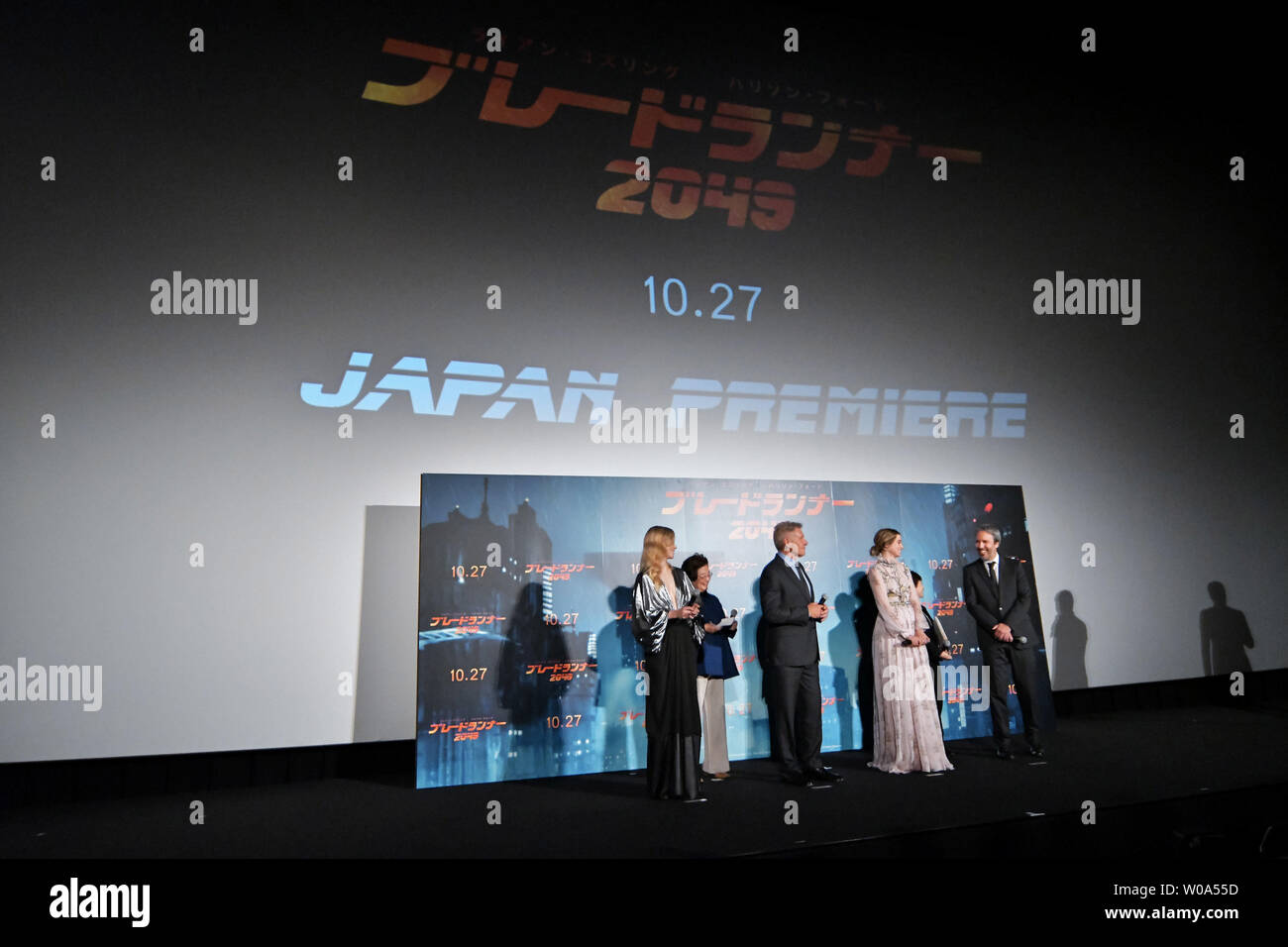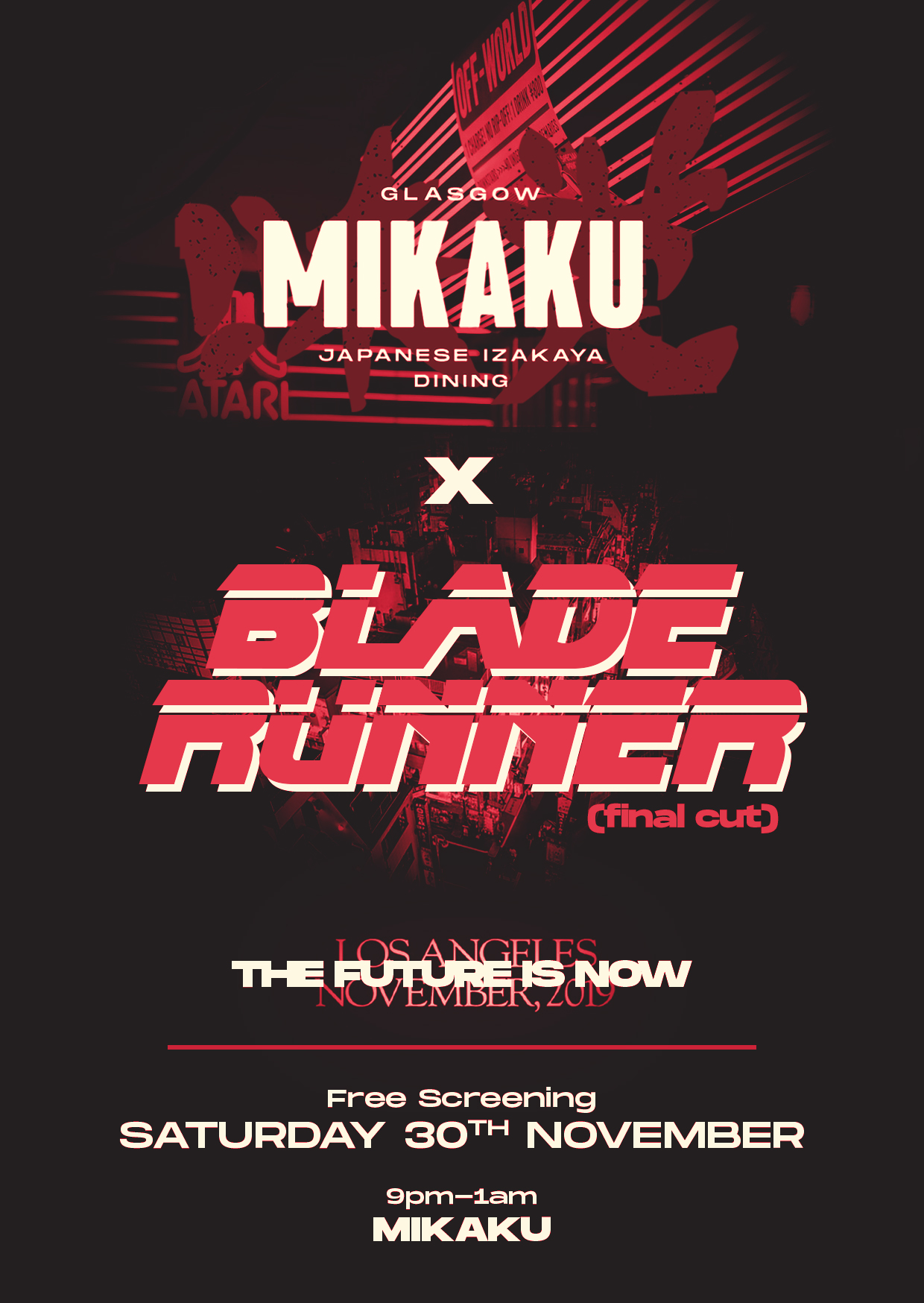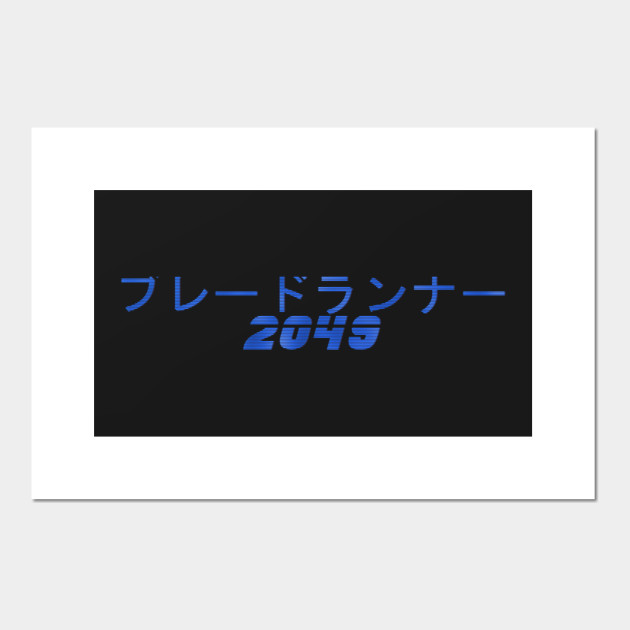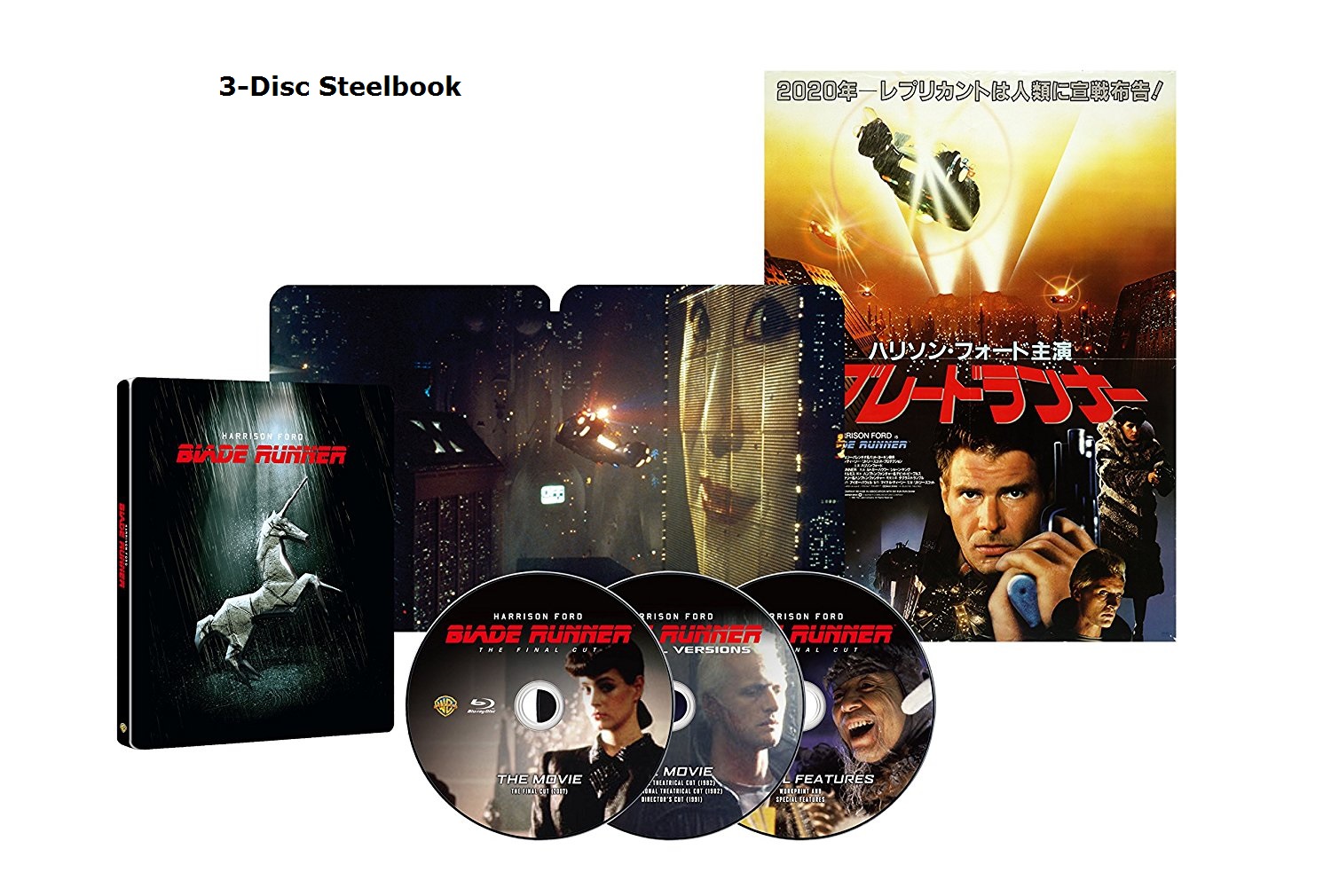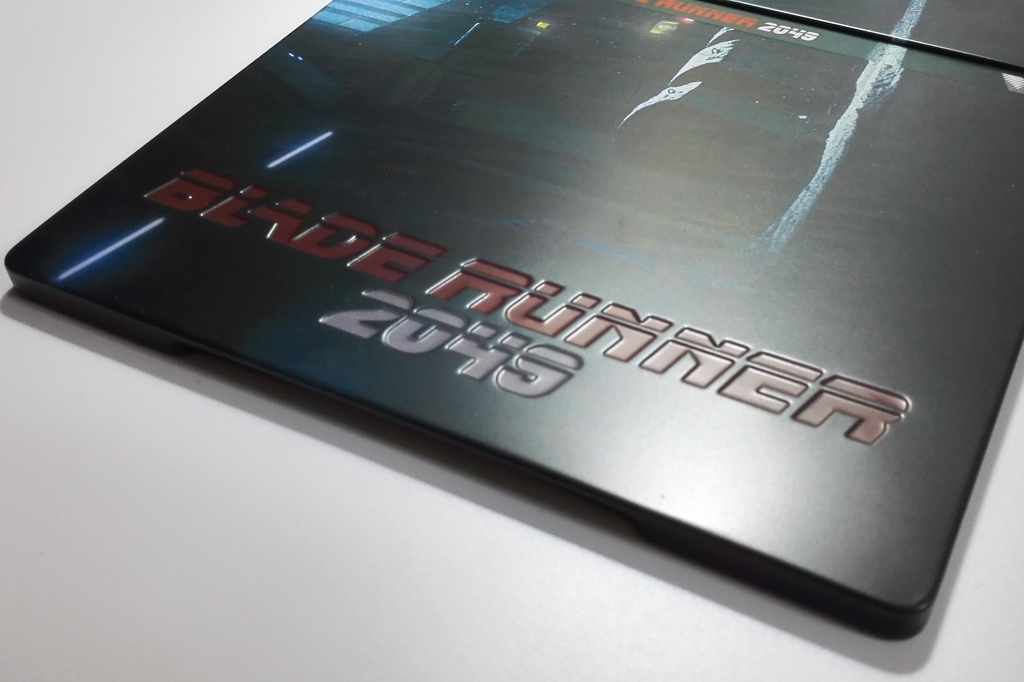
Japanese blade runner font. Blade runner movie font. Fourth of all the lowercase j has the capital j with a dot. 69 matching requests on the forum. Blade runner font is the best movie font typeface which was used in blade runner science fiction movie in 1982.
The film premiered in los angeles on october 3 2017 and was widely released in the united states on october 6. Submit a font tools. Click to find the best 2 free fonts in the blade runner style. Blade runner is a science fiction film released in 1982.
It is also called blade runner 2049 opening text. Blade runner 2049 is a 2017 american neo noir science fiction film starring ryan gosling and harrison ford. Second of all the capital n resembles a capital h. The blade runner font has been downloaded 44829 times.
The font used for the film title in the poster is very similar to blade runner movie font a font designed by phil steinschneider and inspired by the 1982 film title. Making the web more beautiful fast and open through great typography. Looking for blade runner fonts. Dick the film focuses on the story of special police rick deckard known as blade runner who hunts down rebellious robots called replicants made by humans especially for dangerous and menial work on the off world colonies.
Blade runner font features. Phil steinschneider designed this typeface use it in android and logo designs.